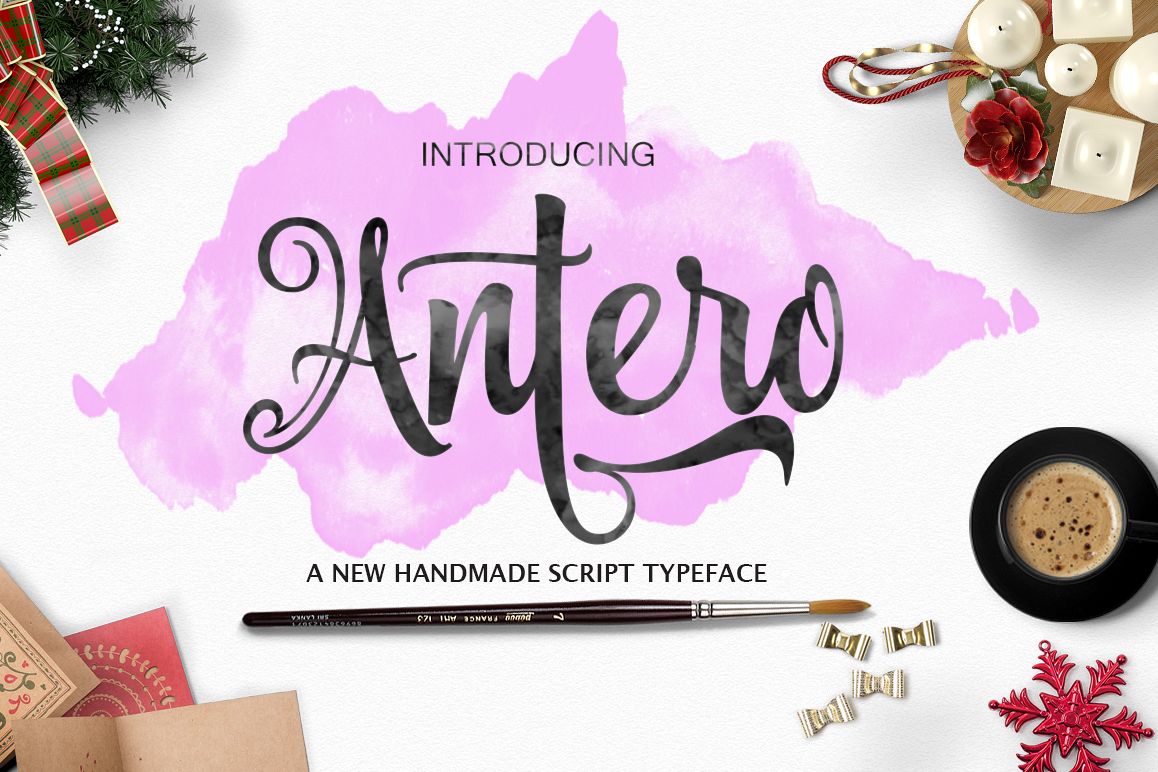
Antero
Antero.
Antero is a script font to have a form of modern calligraphy, there are also some wonderful alternative glyph.
The Features of this fonts is;
Contextual swashes
Contextual Alternates
Standart ligatures
Stylistic Alternates
Stylistic sets